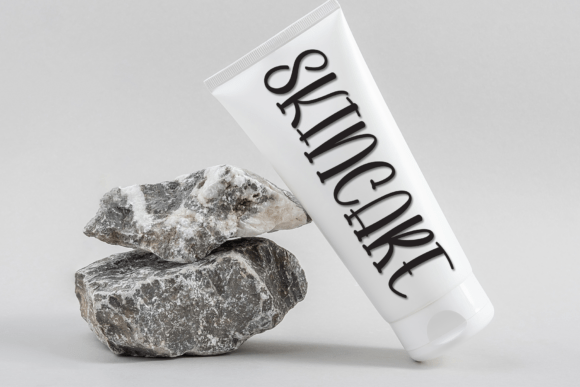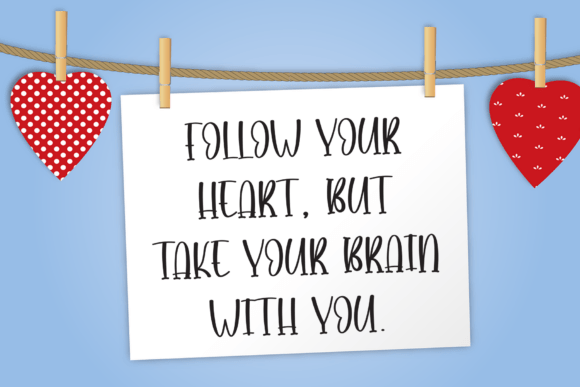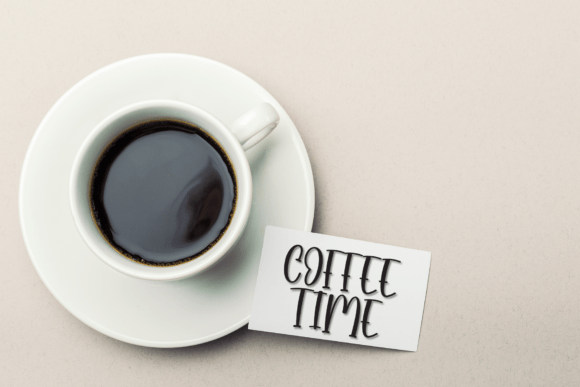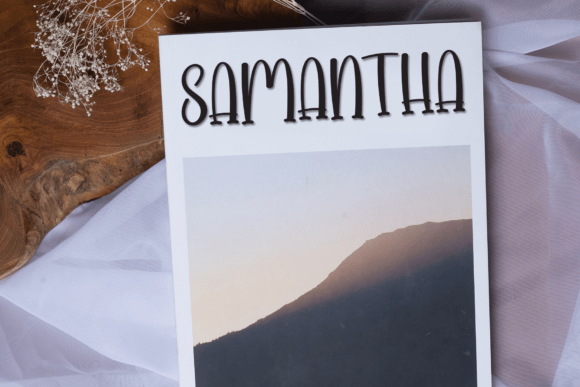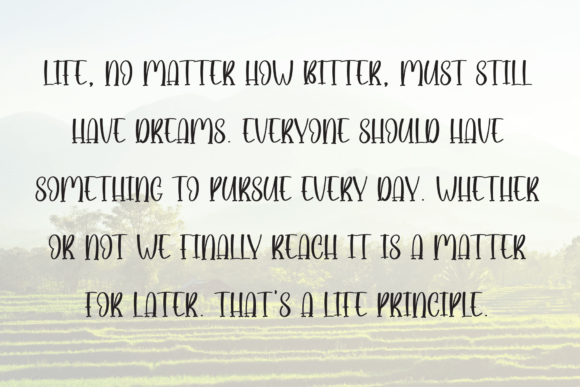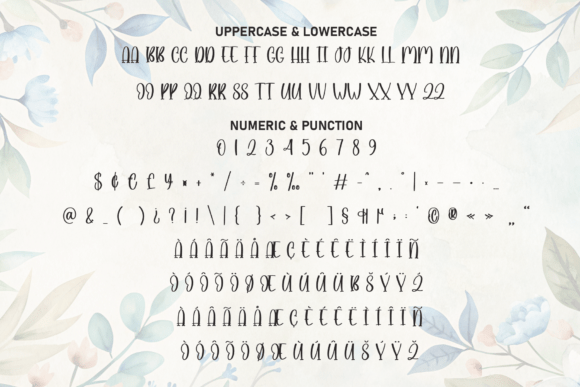
Discover the Charm of Angela Flower Font: A Perfect Blend of Simplicity and Friendliness
Are you on the hunt for a font that embodies the perfect balance of simplicity, friendliness, and modernity? Look no further than the Angela Flower Font. This casual and neat display font is designed to bring a warm and inviting touch to your designs, making it an ideal choice for a wide range of creative projects. In this article, we’ll dive into the world of Angela Flower Font, exploring its unique features, uses, and benefits for designers and crafters.
The Essence of Modern Handwritten Typography
Angela Flower Font is a masterful blend of modern handwritten typography with a polished finish. Its clean lines, balanced letterforms, and subtle rounded edges create a visually appealing aesthetic that’s both crisp and charming. This font is perfect for designers who want to add a personal touch to their work without compromising on clarity or legibility.
Key Features of Angela Flower Font
- Clean Lines and Balanced Letterforms: The font’s clean lines and balanced letterforms ensure that your text is easy to read and understand, making it perfect for body text, headlines, and titles.
- Subtle Rounded Edges: The subtle rounded edges add a touch of warmth and friendliness to the font, making it ideal for designs that require a more approachable vibe.
- Versatile Style: Angela Flower Font is versatile and can be used for a wide range of design projects, from branding and packaging to digital content and more.
Ideal Uses for Angela Flower Font
Angela Flower Font is a versatile font that can be used in a variety of design projects, including:
- Branding: Use Angela Flower Font to create a unique and memorable brand identity that reflects your company’s personality and values.
- Headlines and Titles: The font’s clean lines and balanced letterforms make it perfect for headlines, titles, and subtitles that require a clear and legible font.
- Packaging: Add a touch of warmth and friendliness to your packaging designs with Angela Flower Font, making your products stand out on store shelves.
- Digital Content: Use the font to create engaging and readable digital content, such as blog posts, social media graphics, and more.
Angela Flower Font offers a range of benefits for designers and crafters, including:
- Easy to Read: The font’s clean lines and balanced letterforms ensure that your text is easy to read and understand, making it perfect for designs that require clear communication.
- Versatile: The font’s versatile style makes it suitable for a wide range of design projects, from branding and packaging to digital content and more.
- Time-Saving: With Angela Flower Font, you can create professional-looking designs in no time, saving you time and effort in the design process.
In conclusion, Angela Flower Font is a fantastic choice for designers and crafters looking for a font that combines simplicity, friendliness, and modernity. Its clean lines, balanced letterforms, and subtle rounded edges make it perfect for a wide range of design projects, from branding and packaging to digital content and more. With its versatility, clarity, and charm, Angela Flower Font is sure to become a staple in your design toolkit.